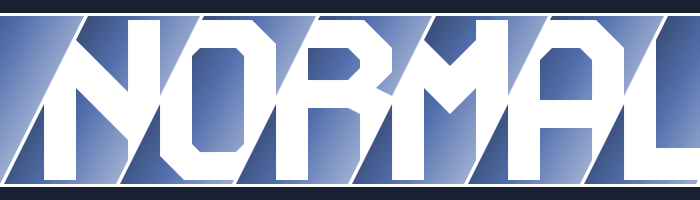
Amazing! A mix of regular and italic, black and white... Q is tough here.
Great! Could the Q be more like this?
Really inventive design. Great!
Inventive and good looking! I second Yautja's suggestion.
Genius! Orginal, inventive, good.
It has a great rhythm and a dynamic feeling. Somehow reminds me of a train passing by.
Great design. It virtually eliminates all kerning headaches. The new Q is better. 10/10
Congrats for this refreshing TP! I'm with Frodo7 about the final Q, it's great. Talking about the rest, I have a little doubt with the juxtaposition of some of your glyphs (I add you a sample) because the space between they it's not equal in all the cases, but it can be all intentioned, of course (you are a magician of signs, IMHO, all is possible with you...).
I've modified all characters so that the overlap ends in a point with as many characters as possible. Perhaps it's better as a result.
Even better! Datsun?
Oh, yeah. Datsun. I have very weak spelling memory.
^Thats eyebreaking for me because the spacing of the letters^
Strange Y